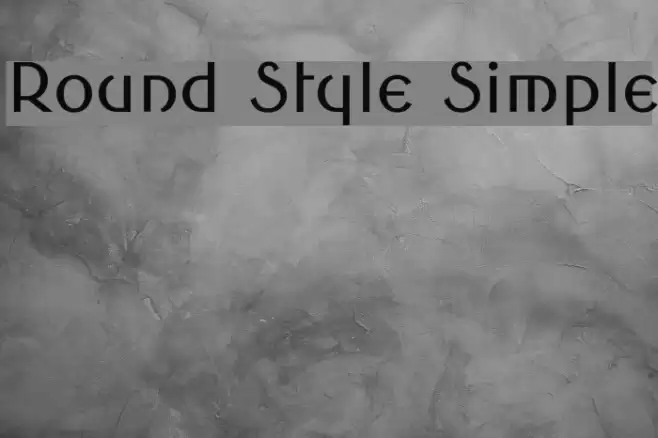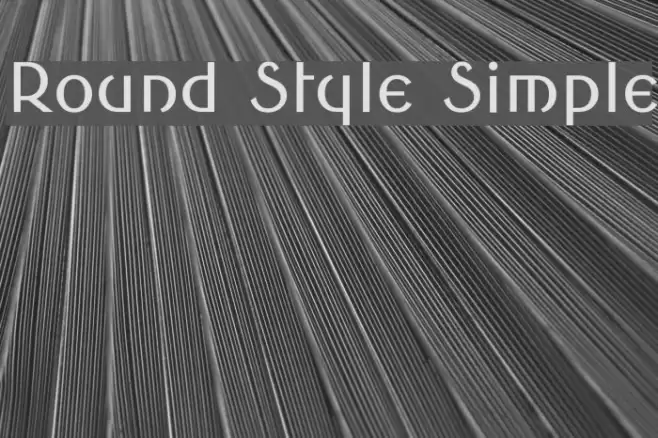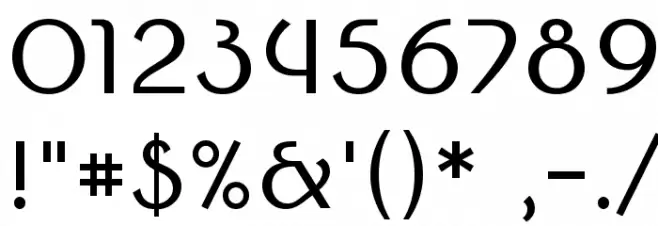
Round Style Simple Font
Round Style Simple Description
This font features a clean, geometric design with a modern twist. The characters are crafted with smooth, rounded edges and a consistent stroke width, giving it a sleek and contemporary appearance. The uppercase letters exhibit a uniform height and width, while the lowercase letters maintain a similar style, ensuring readability and balance. The numerals are distinct and easily distinguishable, complementing the overall aesthetic. Special characters are designed with the same attention to detail, making this font versatile for various applications. Its simplicity and elegance make it suitable for both digital and print media.
A modern, geometric font with rounded edges and consistent stroke width from Uncategorized fonts.